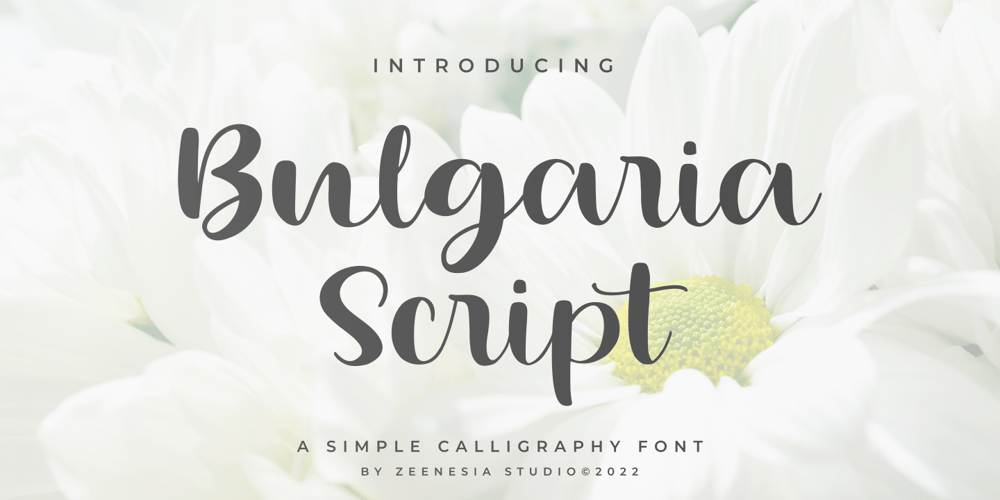
Bulgaria Script
Bulgaria Script font
Bulgaria Script Font Family was designed by Zeenesia Studio and published by Zeenesia Studio. Bulgaria Script contains 1 styles and family package options. Bulgaria Script is a beautiful and light handwritten font with a unique feel and a stunning impact. It will add a luxury spark to any design project that you wish to create! This font is PUA encoded which means you can access all of the amazing glyphs and ligatures with ease!